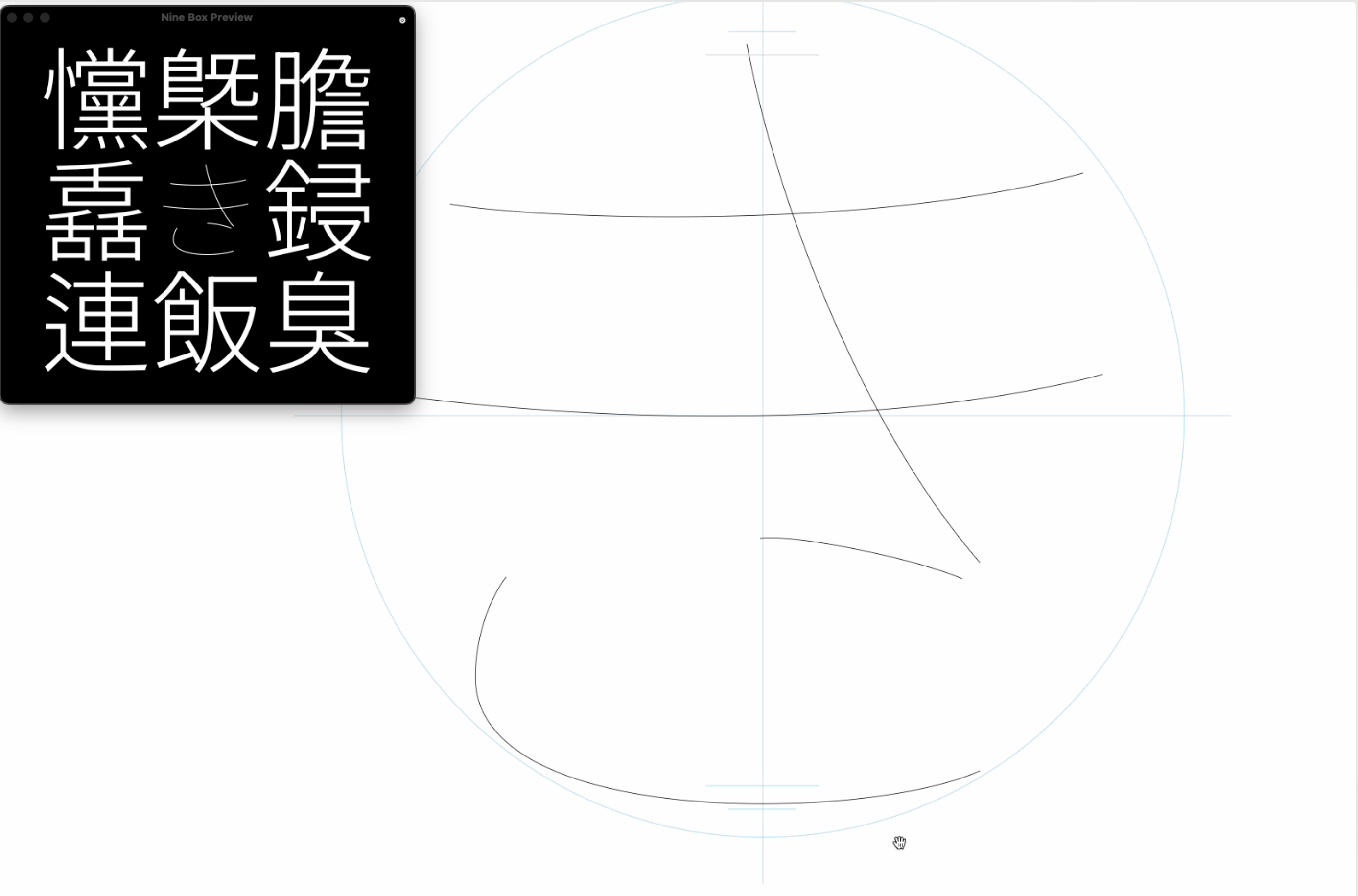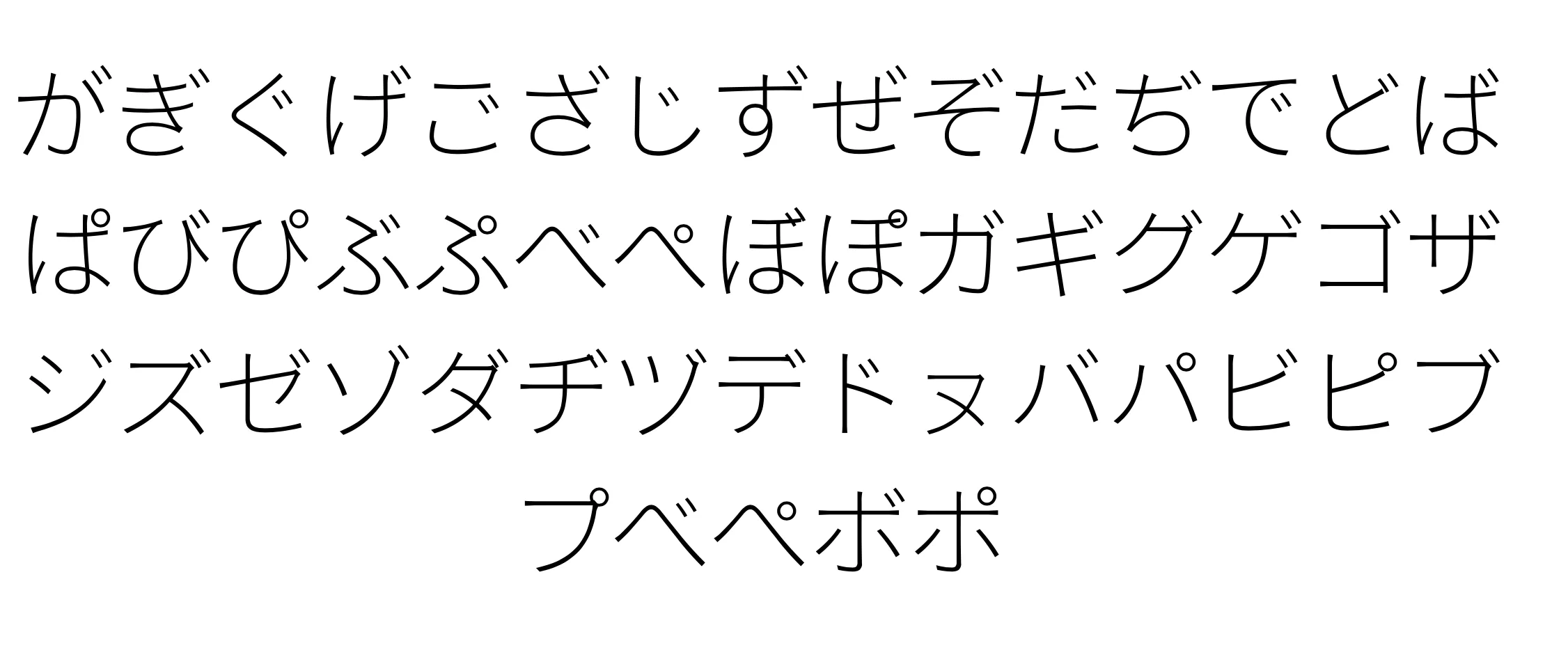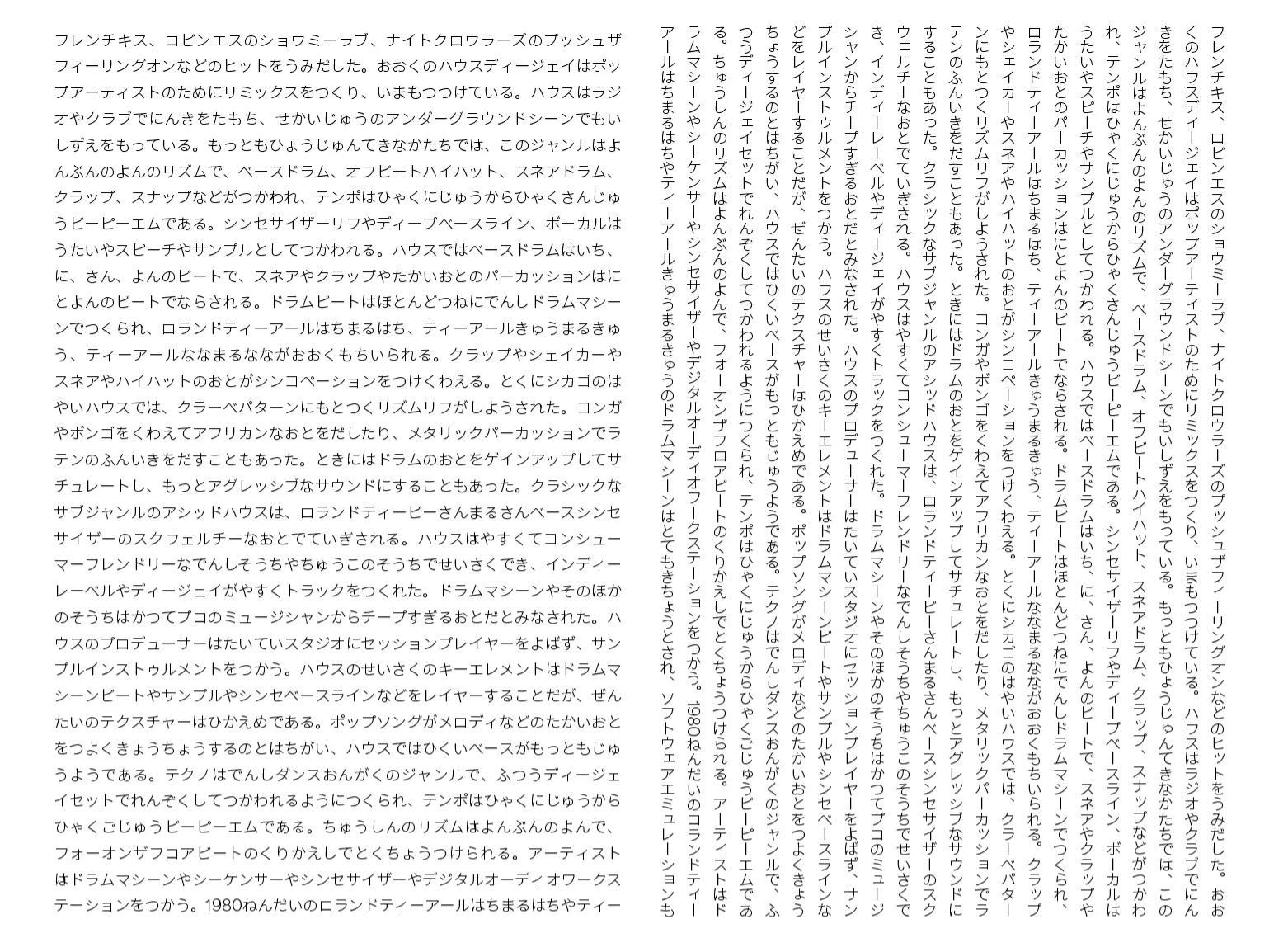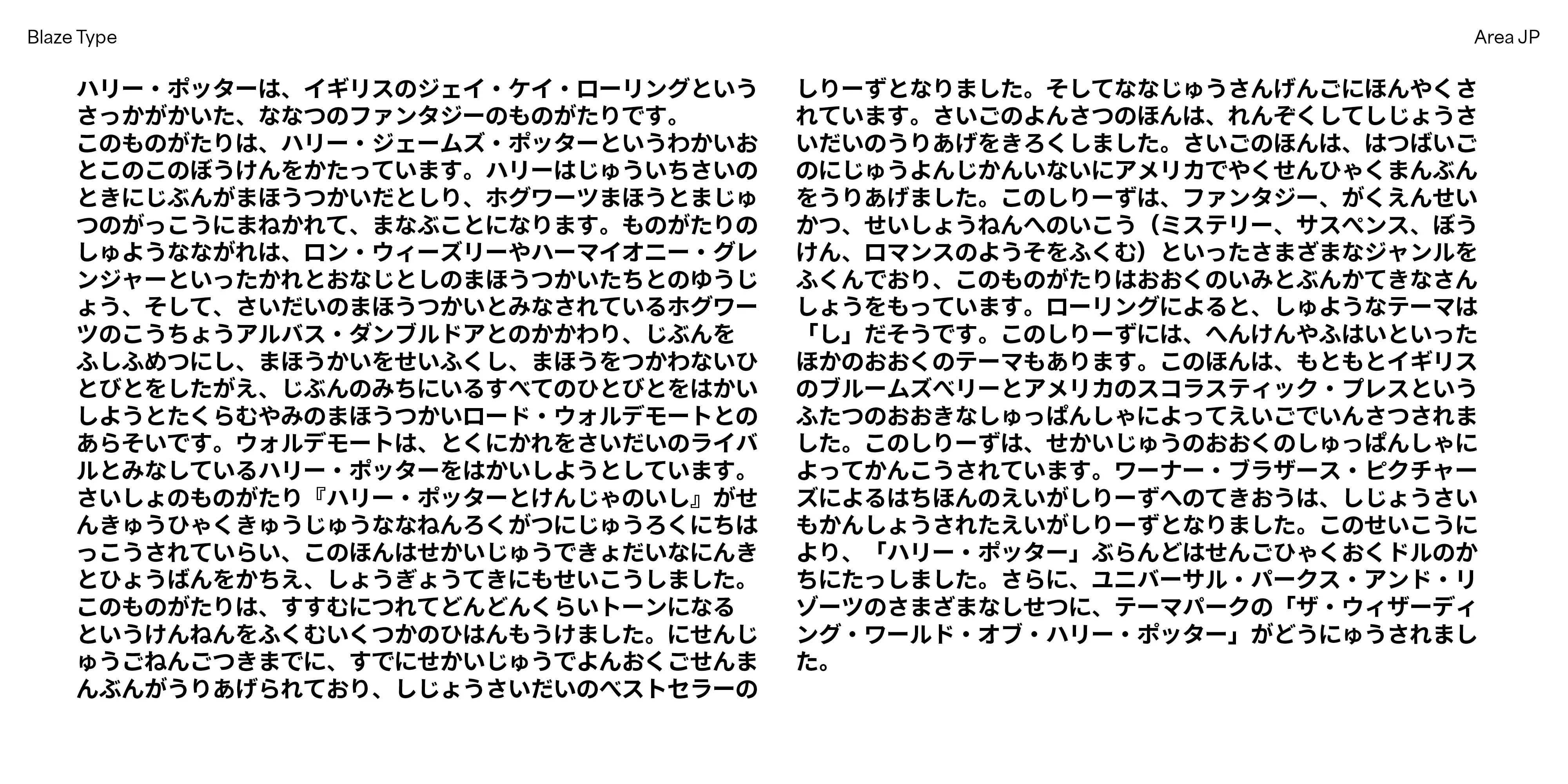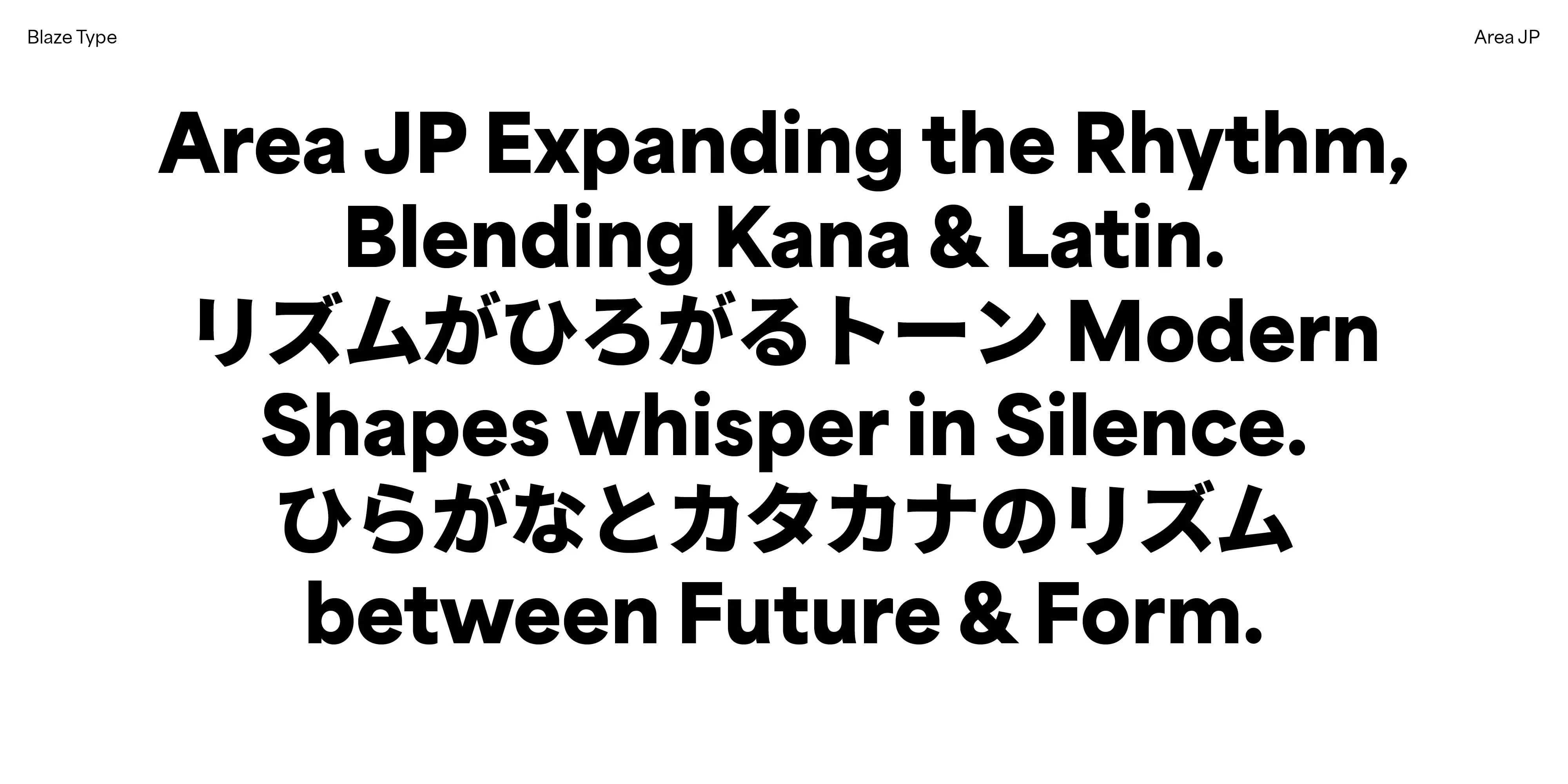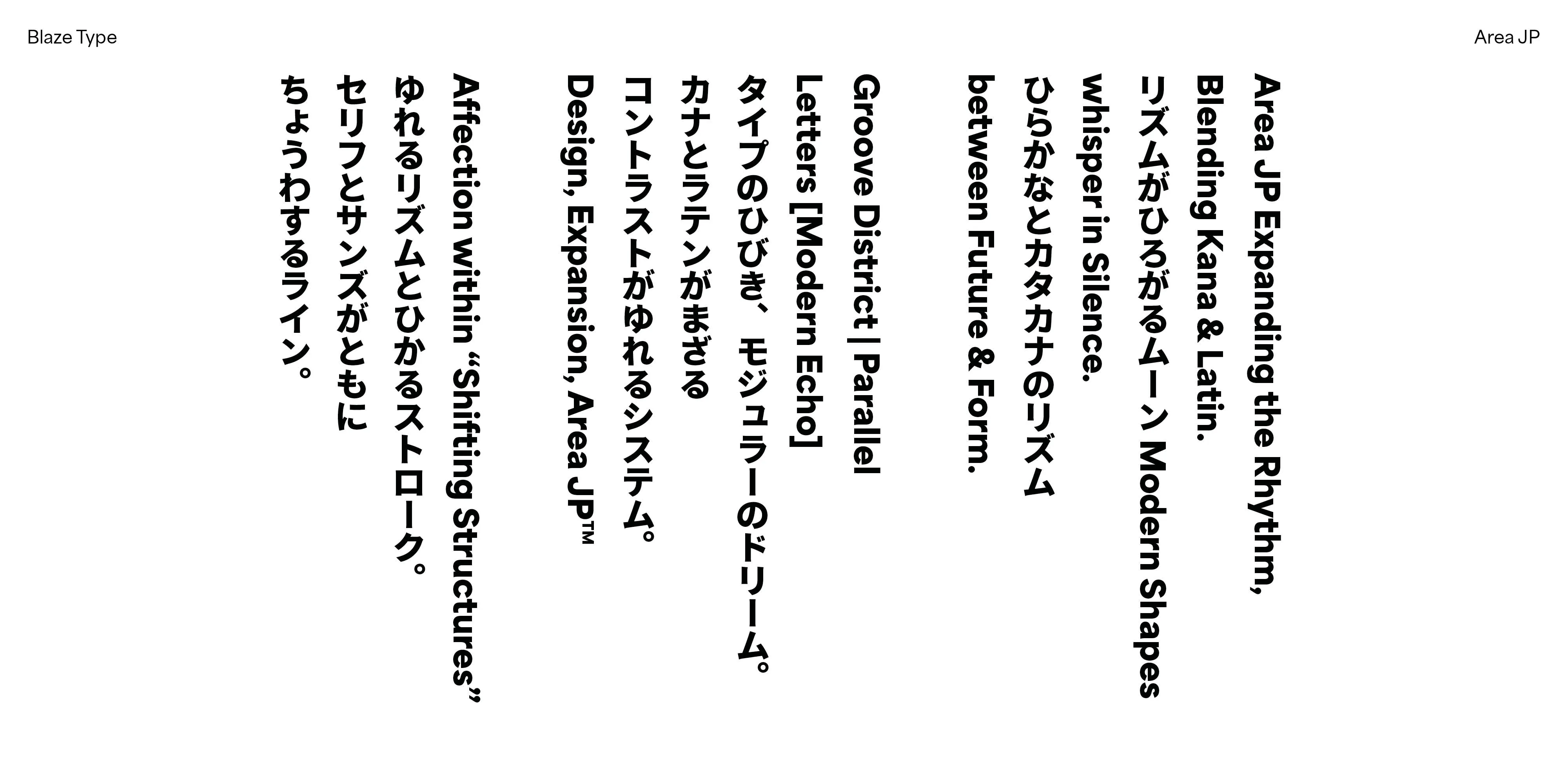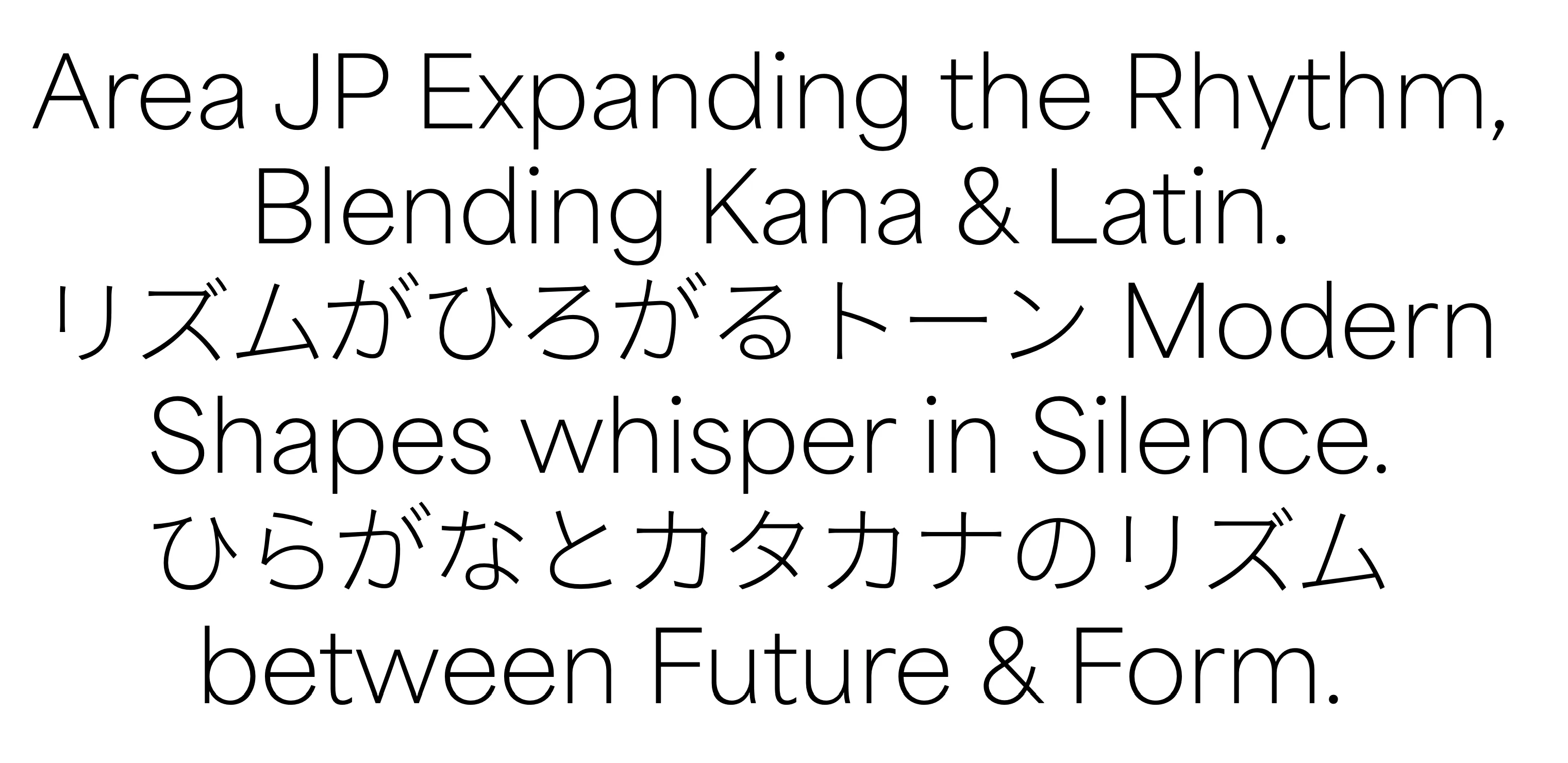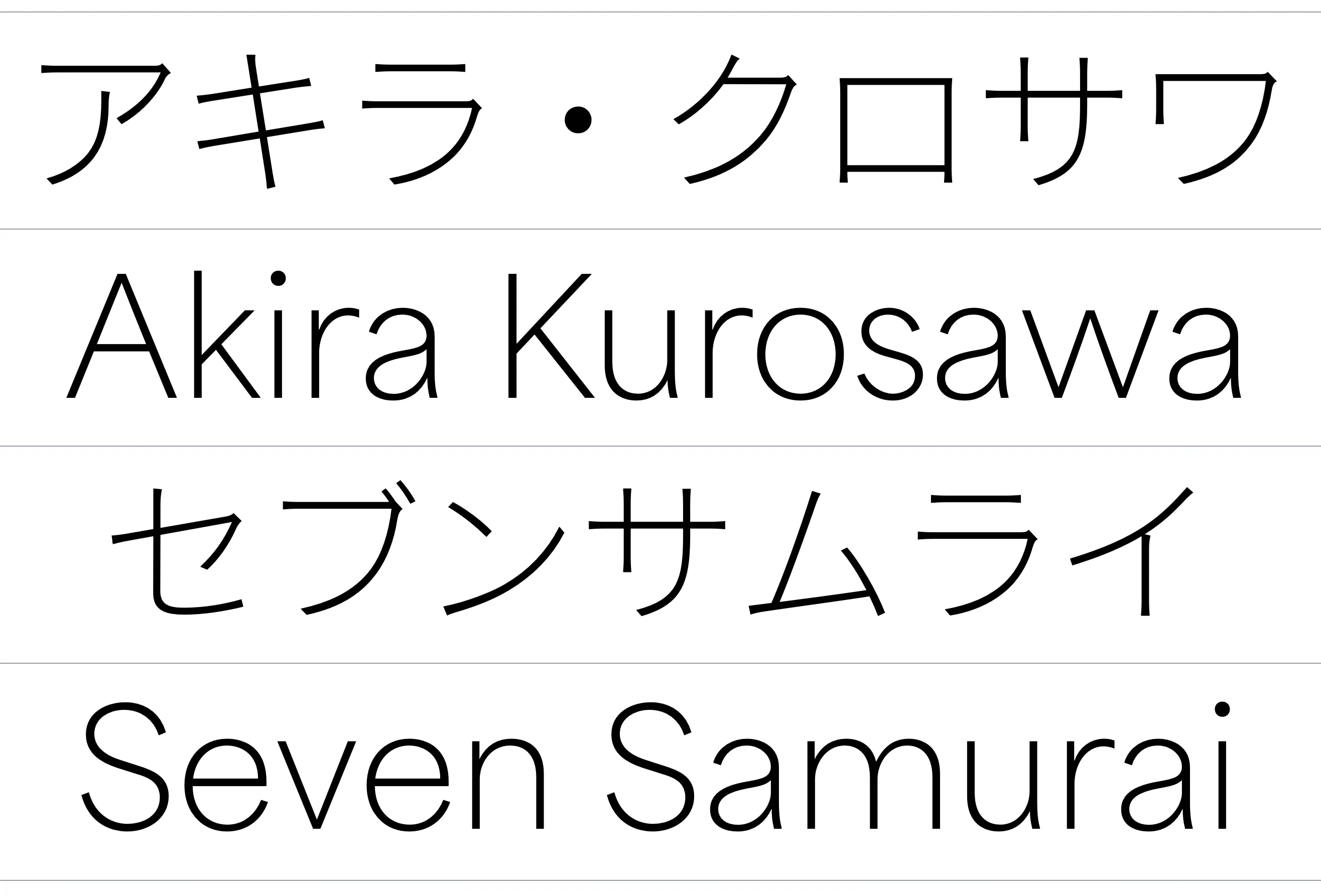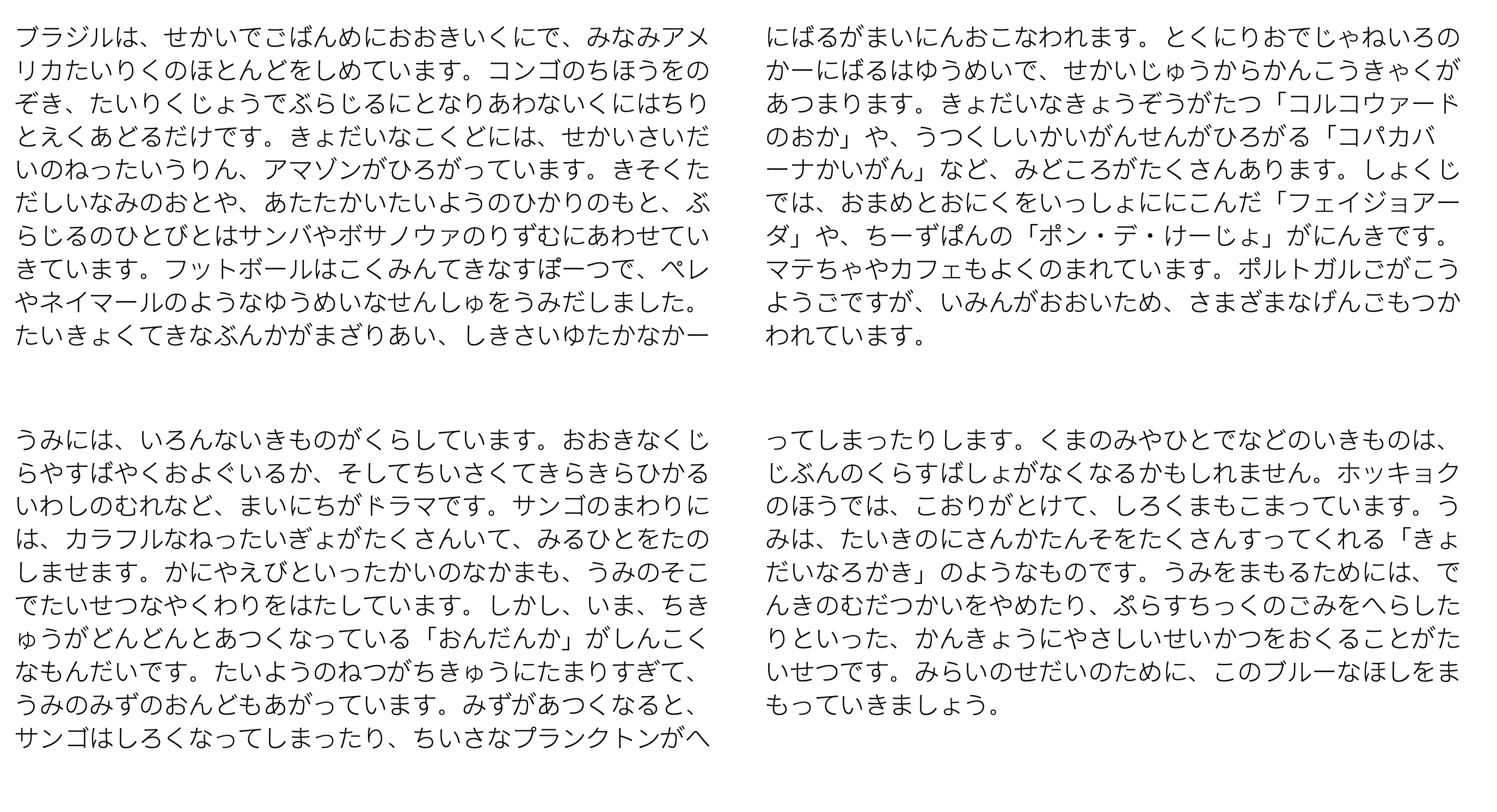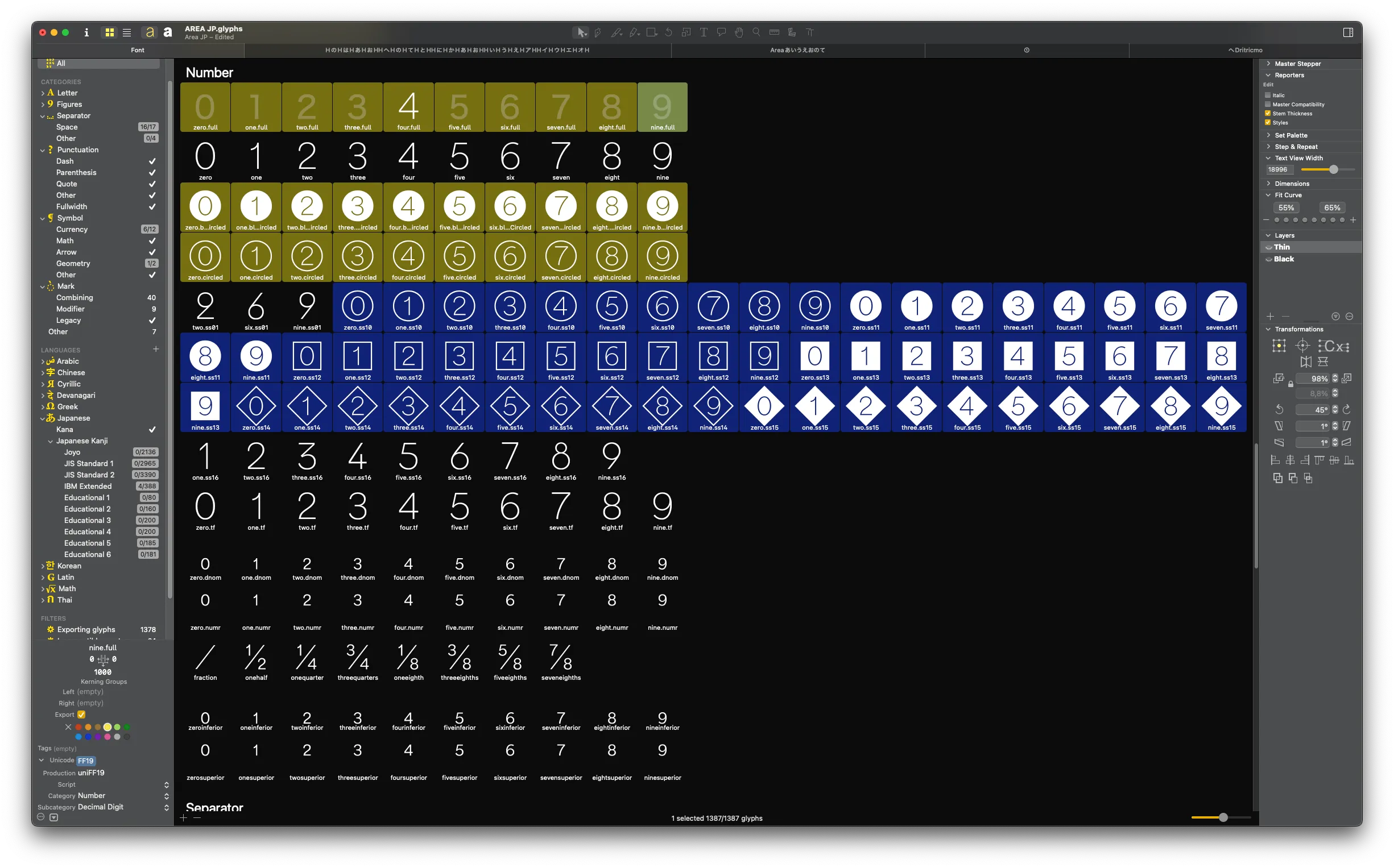
Area JP: making of Japanese
Expanding Area towards Japan
Introduction
This article is a translation of the ongoing discussion between Caio Kondo (Inari Type) and Matthieu Salvaggio during the development of Area JP. Most of the records are based on the documentation Caio Kondo gave during the design process. The discussion happened on Discord and takes the shape of a back and forth between the two designers. Caio Kondo working on the development, art direction, production. Matthieu Salvaggio giving hints and questioning some steps of the process as he learns more about the way Kana are being designed alongside Japanese lessons he's been taking to understand the writing and speaking system better.
Early stages
Before I start drawing, I’ll begin by researching references. At this stage, it’s important to understand which Japanese style works best to bridge with the Latin script. Just like in the Latin alphabet, there are two main categories: Mincho (serif) and Gothic (sans serif). From these two, many other styles branch out. These references will be essential for defining proportions and metric alignment with Latin, which is why choosing the right ones is so important. Once we decide on the style to follow, the next step will be drawing the skeleton. From there, I’ll explain each stage in detail.
I’m sharing some material that connects Blaze Type’s fonts with different Japanese styles. This is only the first stage of the research, but I’ve already considered all of Blaze’s sans fonts, since I believe it’s important to bring diversity of styles into the catalog instead of focusing on just one. In the analysis, I organized the fonts from less humanist to more humanist, taking into account curvature and more fluid terminals. Just like in Latin, gothic kana also shows this subtle differentiation.
Area aligns with a squared style but shows some humanist details, especially in the terminals and a slight calligraphic presence, while still keeping a universal design.
The metrics & skeleton
At the same time, I’ll begin sketching the skeleton of a few characters. I like to start with frequently used grammatical particles such as の か は へ で と に, since they appear often and play an important role in shaping the structure of the system. Alongside these, the initial vowels あいうえお アイウエオ are also essential, as they help define the DNA of the project. Just like in the Latin alphabet, the construction process for kana is modular (though not a simple copy and paste haha). Certain characters act as key forms that feed into the overall design vocabulary of the system. This will become even clearer once I start grouping characters by their structural similarities. In this stage, I’ll also refine the vertical and horizontal metrics to harmonize both scripts. In my view, this is the most important part of the process!
This configuration allows uppercase letters to align with kana, so when the Latin script is rotated 90 degrees, the kana remains aligned, just like in these images:
At this stage, I’ve disabled all custom parameters for line spacing such as the metrics for ascenders and descenders.. That way, both vertical and horizontal writing keep identical line spacing. Later on, I’ll adjust this to avoid confusing text readability. Regarding the drawing itself, I’ve only sketched the skeletons of the letters without adding contrast or refinement. it’s still very early and will evolve a lot. The principle behind designing Japanese letters is the same across all Asian scripts: unlike the Latin alphabet, letters are visually centered within the box. It’s almost as if the letters were pieces of meat on a skewer. I try to keep the grid as clean as possible, and in the end, I check alignment visually using H H to see whether everything feels centered. This really helps reduce distractions and shows if things are visually balanced or not.
I’m still experimenting with proportions, especially trying to understand the best sidebearings for kana in order to match as closely as possible the spatial perception that Area provides.
On top of that, I also looked into circled numbers and letter characters. It’s important to include them in the unicode character as well. If they are encoded, Japanese users can easily access them through the IME input system for instance, by typing Maru (circle) + number, which then gets replaced with the circled number. Still, I don’t think we should exclude stylistic sets, since these features are becoming increasingly popular for non-Japanese speakers. They would make access easier for this audience too, rather than forcing them to copy and paste from a unicode chart or glyph map.
I’m going to keep the current stylistic set and also add the circled numbers and letters with their respective Unicode mappings. This won’t create any new stylistic sets, but these characters will then be recognized in software. That way, the software won’t replace Area with a default font when trying to access these characters. Here’s an image of that, in blue are the stylistic sets and in yellow my addition.
Hiragana Ki
MS: Do you think we should consider an alternate version of kiき where the under circular shape is joined? I know it can be separated as you did but the joined version exists as well, just pondering about it
CK: I hadn’t really thought about it, but I think that’s possible for this style! Which one do you prefer me to set as the default?
MS: Honestly I've seen both of the style, i suppose it's a good way to distinguish it even more from "sa" to have it unjoined?
CK: I don’t think I’d go that way; both should be perfectly legible. The unjoined version tends to show off the calligraphic style more than the joined one. Since this style sits between the humanist and universal styles, both can work! Personally, I prefer the unjoined version because I think it creates more interesting shapes. I like that it has alternates, since someone might feel the exact opposite of me haha
CK: This week was all about testing and making the final adjustments. let me know what you think! Line spacing is set to work smoothly in both horizontal and vertical writing without causing any confusion.
CK: The accents are now optically more consistent with the letters, and you were right it really does look much better!! All OpenType features (full, vert, vrt2, etc.) have been reviewed to avoid fallback or issues. Really excited about the result, and very grateful for the opportunity and your patience. Let me know if we’re ready for the next typeface!